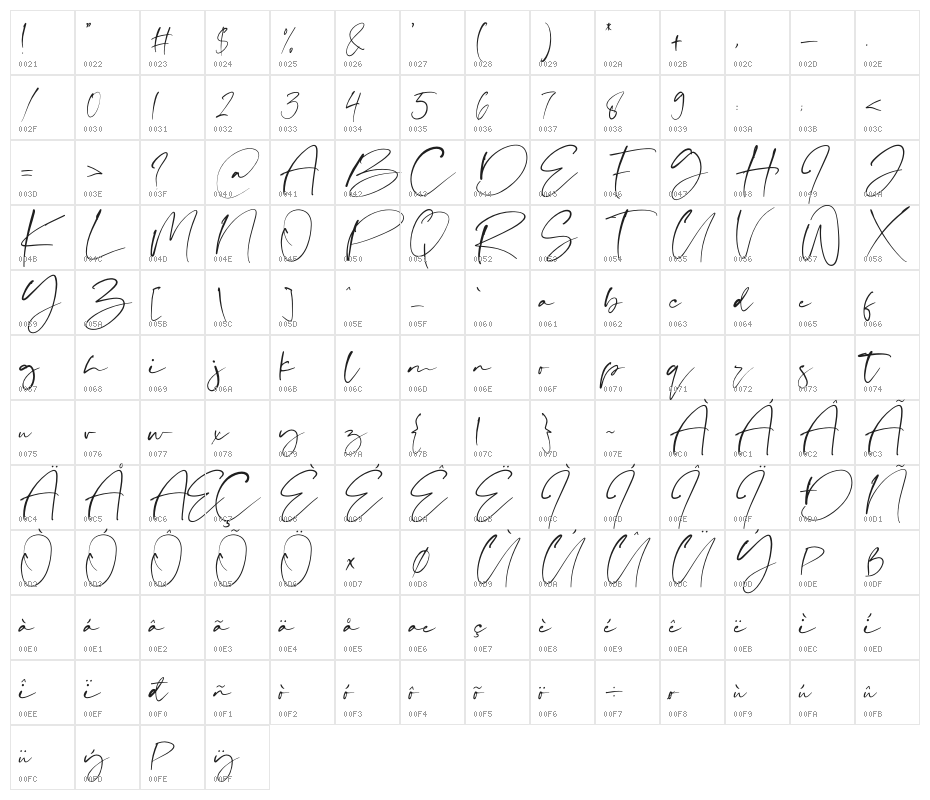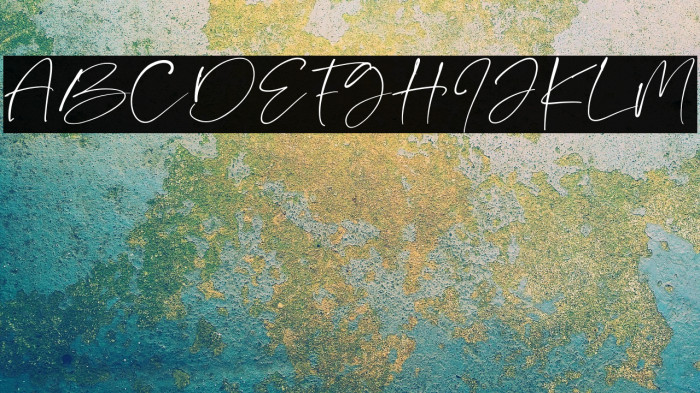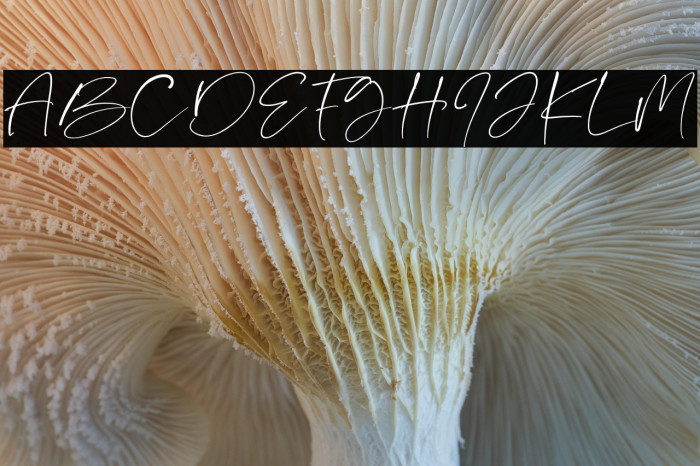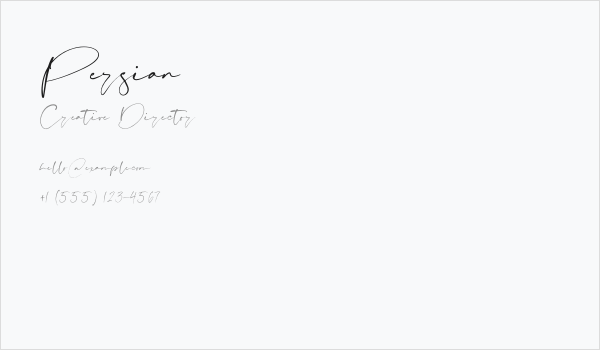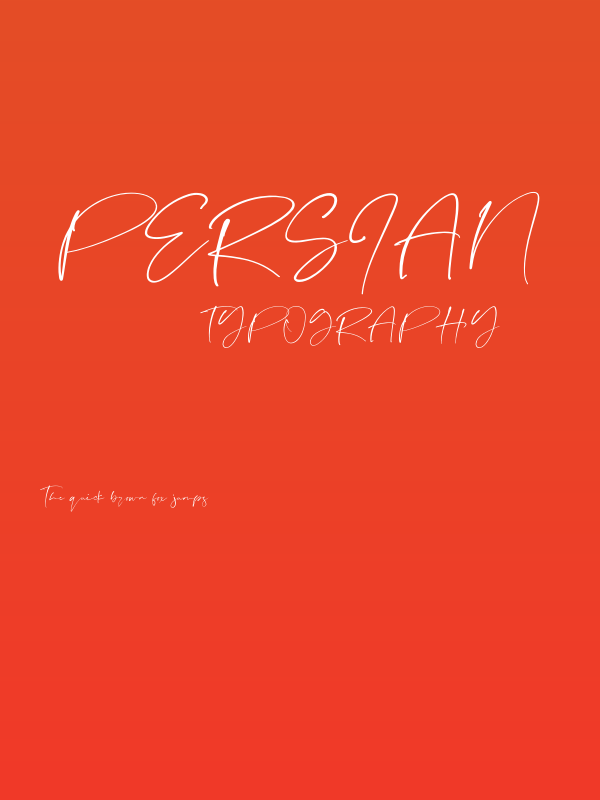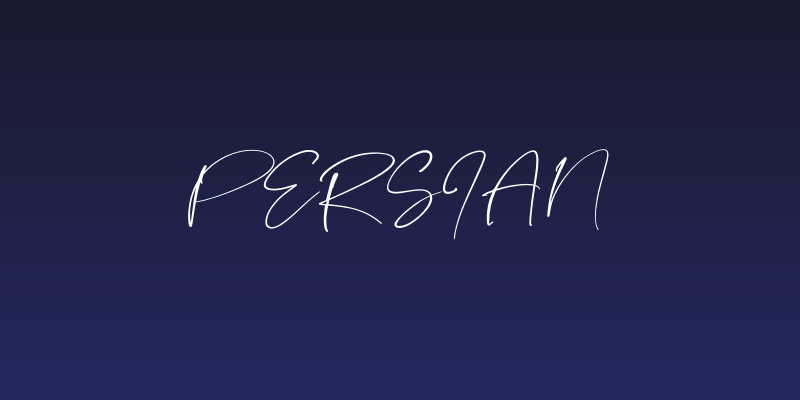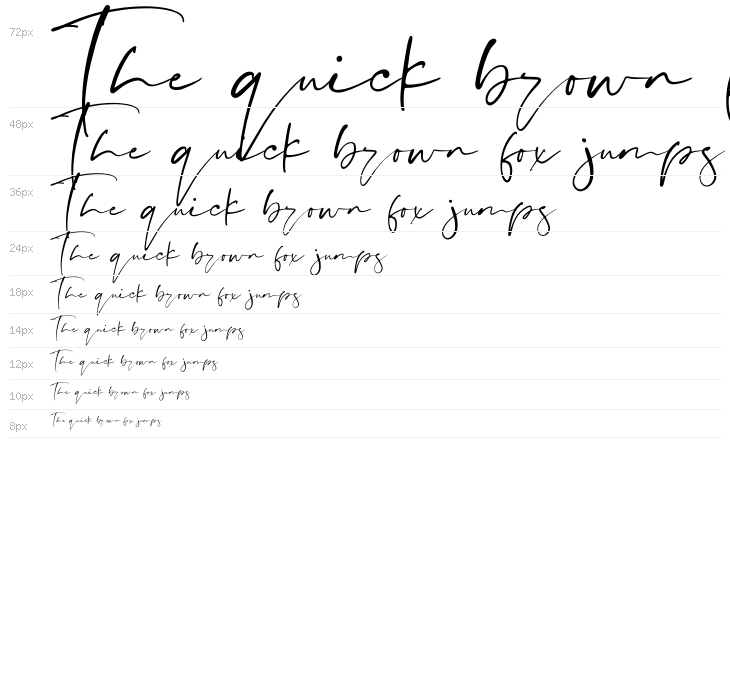
Persian Font
Persian Description
This font exhibits a dynamic and fluid handwritten style, characterized by its elegant and flowing script. The uppercase letters are tall and slender, with a slight slant that adds to the overall graceful appearance. The lowercase letters maintain a consistent flow, with smooth curves and loops that enhance the handwritten aesthetic. Numbers and special characters are designed to complement the letters, maintaining the same fluidity and elegance. The font's overall appearance is both sophisticated and approachable, making it suitable for a variety of design projects.
| Overall Style | Elegant, Artistic |
| Proposed Projects | Ideal for wedding invitations, greeting cards, personal branding, and artistic projects that require a touch of elegance and personality. |